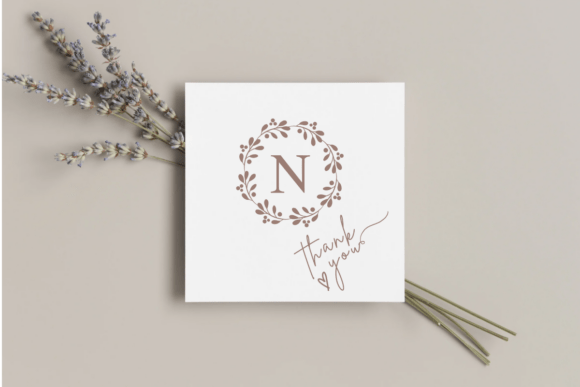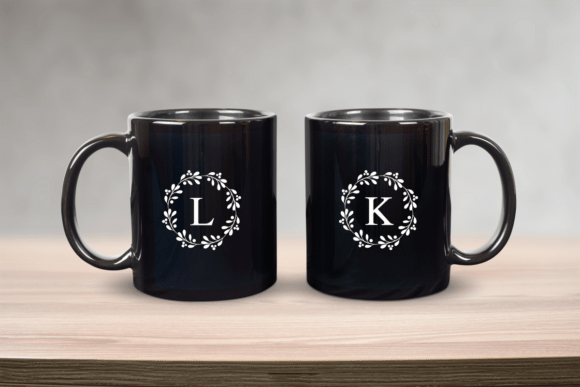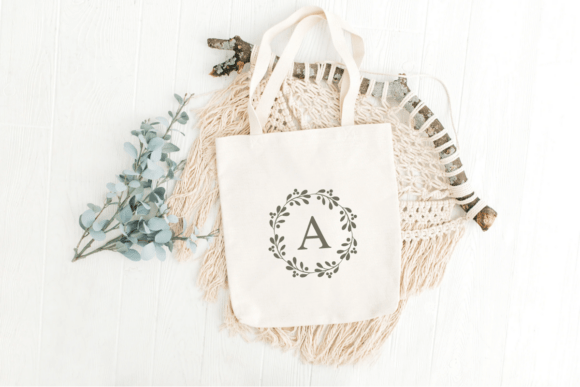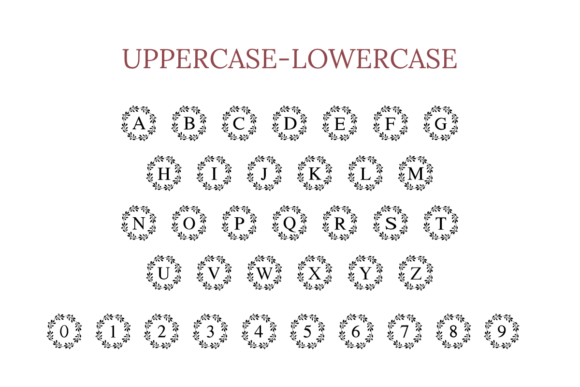
The Perfect Petal for Your Design
As a designer, have you ever stumbled upon a font that makes your heart skip a beat? For me, it was the moment I laid eyes on the Blossom Monogram Font. Its delicate petals and refined curves transported me to a world of elegance and sophistication.
What makes the Blossom Monogram Font so special is its unique blend of timeless sophistication and whimsical floral elements. Perfect for wedding stationery, personal branding, or upscale packaging, this font brings a touch of refinement to any design. Its ornamental details and feminine charm make it a go-to choice for designers looking to create classy, sophisticated creations.
Whether you’re a seasoned pro or just starting out, the Blossom Monogram Font is a valuable addition to any designer’s toolkit. In this article, we’ll dive deeper into the world of this stunning font and explore its many uses and benefits.
Blossom Monogram Font Key Features
- Font Family: Blossom Monogram Font is a unique monogram font designed to create custom monograms for various occasions.
- Unique Characteristics: Blossom Monogram Font features intricate details and elegant curves, making it perfect for creating beautiful monograms for weddings, parties, and other special events.
Blossom Monogram Font Review
I recently had the chance to work with the Blossom Monogram Font, and overall, I’m quite impressed. Here’s my honest review:
- Unique and elegant design: The Blossom Monogram Font is perfect for adding a touch of sophistication to your designs.
- Customization options: The font offers a range of customization options, making it easy to adjust the look to fit your needs.
- Easy to use: The font is relatively easy to use, even for those who aren’t familiar with monogram fonts.
- Limited character set: The font only includes uppercase letters, which can be a limitation if you need to use lowercase letters.
- No multilingual support: The font only supports the Latin alphabet, which may be a limitation for designers who need to work with other languages.
Overall, I’m impressed with the Blossom Monogram Font. It’s a beautiful and elegant font that’s perfect for adding a touch of sophistication to your designs. While it does have some limitations, I think it’s worth considering for your next design project.
Tip: Use the Blossom Monogram Font for wedding invitations, baby showers, or other special occasions to add a touch of elegance and sophistication.
The Blossom Monogram Font is ideal for:
- Baby shower invitations and decorations
- Custom